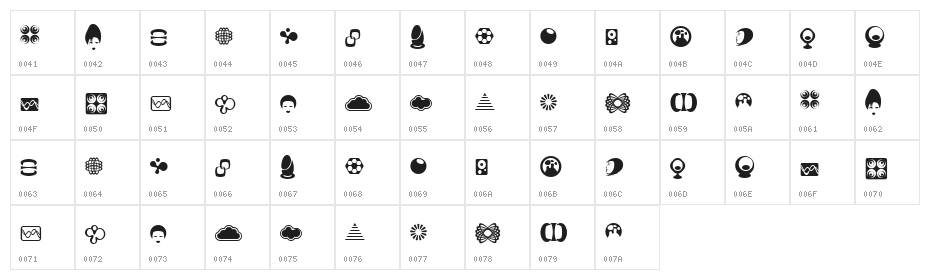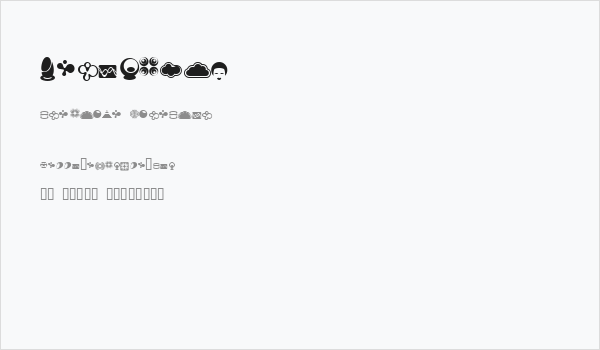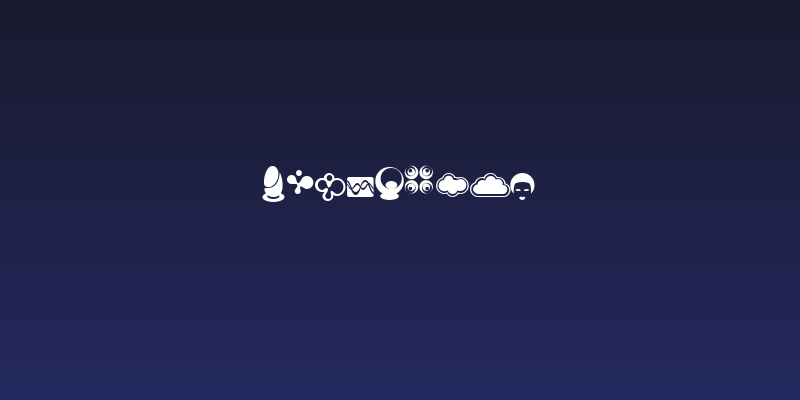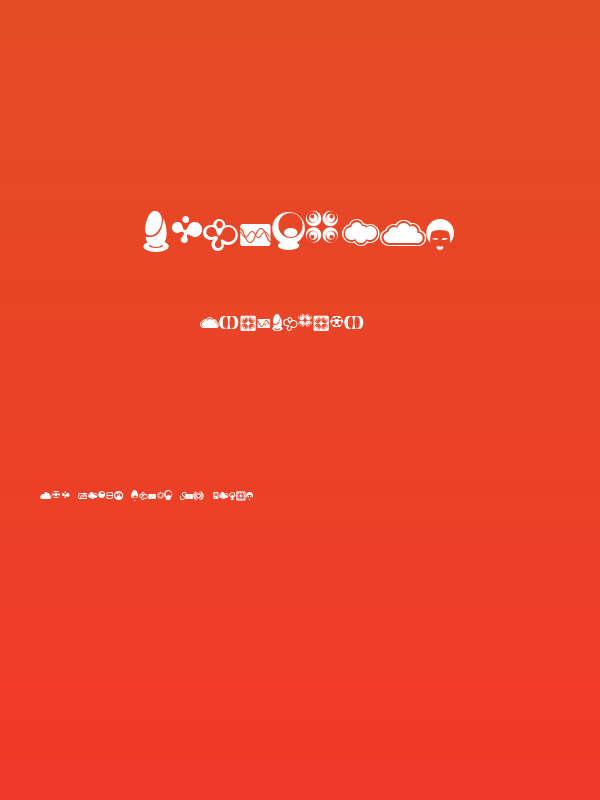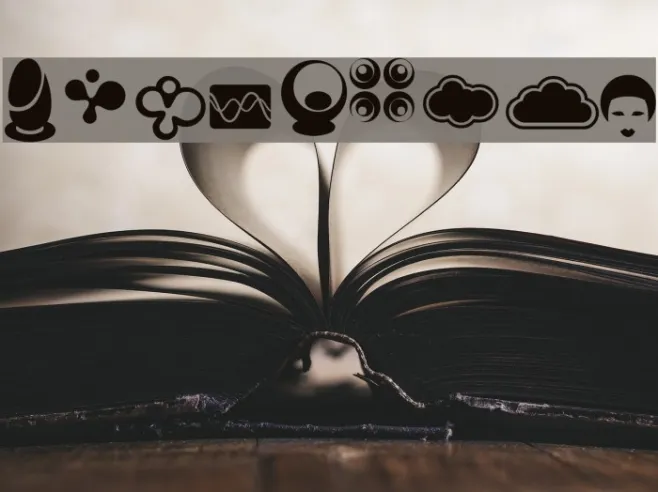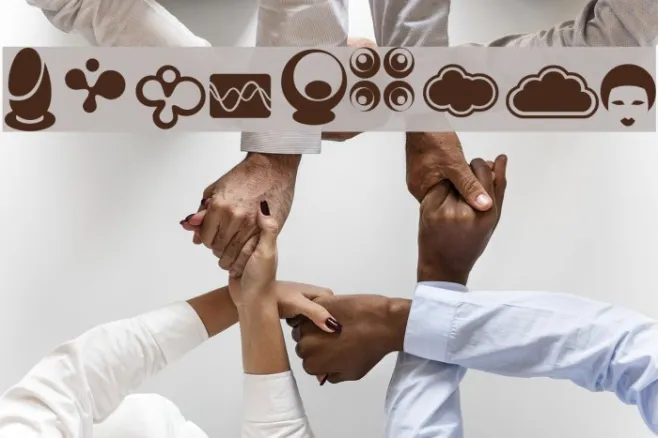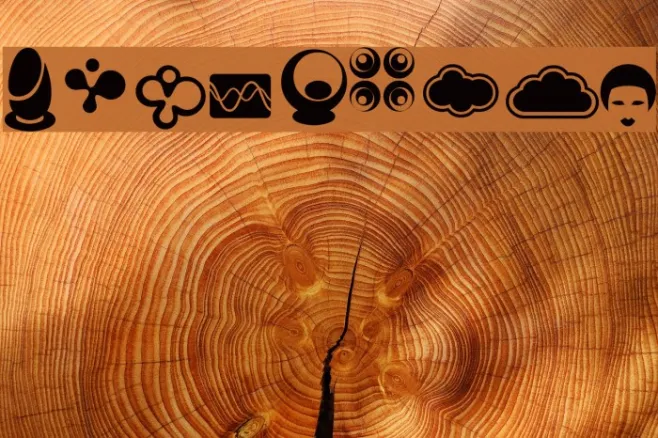
Geronauts Font
Geronauts Description
A highly decorative and playful dingbat font featuring a variety of retro-futuristic and space-themed icons, including stylized faces, geometric shapes, clouds, and abstract symbols. The glyphs are bold, filled, and outlined, with a consistent visual weight and a whimsical, mid-century modern aesthetic.
| Overall Style | Decorative, Retro-Futuristic, Playful |
| Use Case | Logos, Headlines, Posters, Themed Graphics |
| Proposed Projects | Posters, album covers, science fiction book covers, branding for tech or creative industries, themed event invitations, educational materials. |